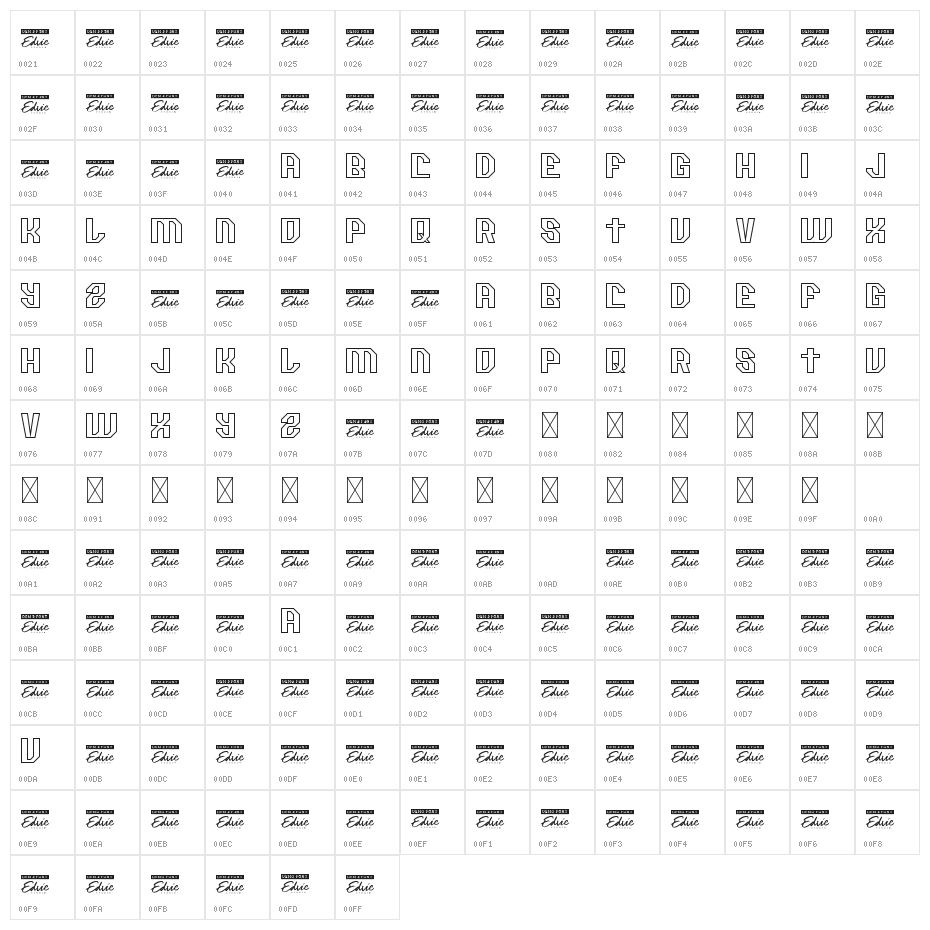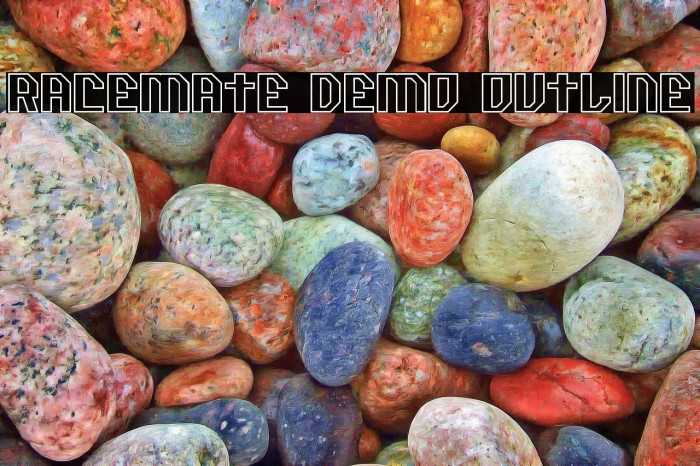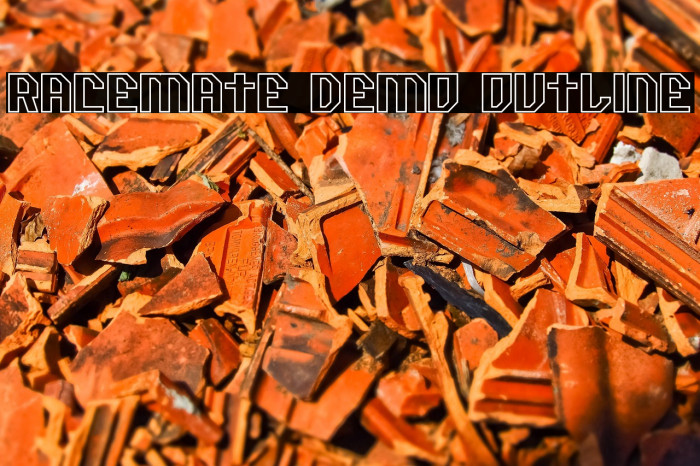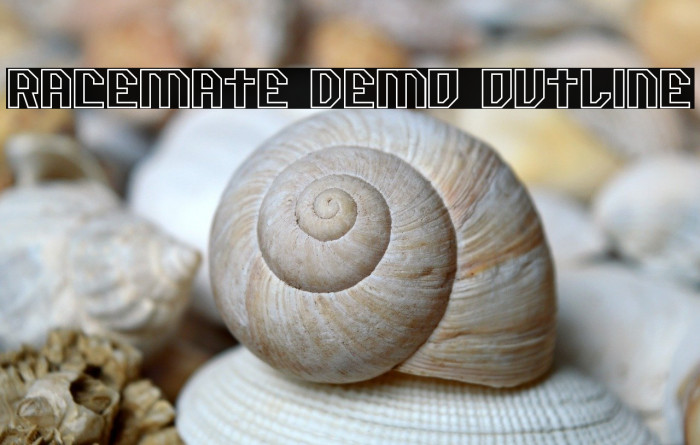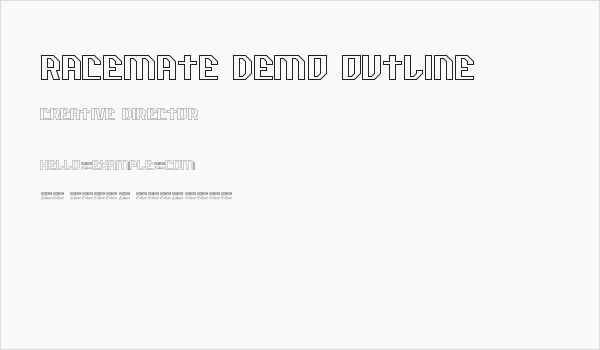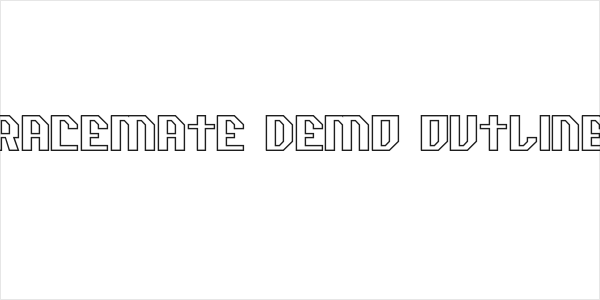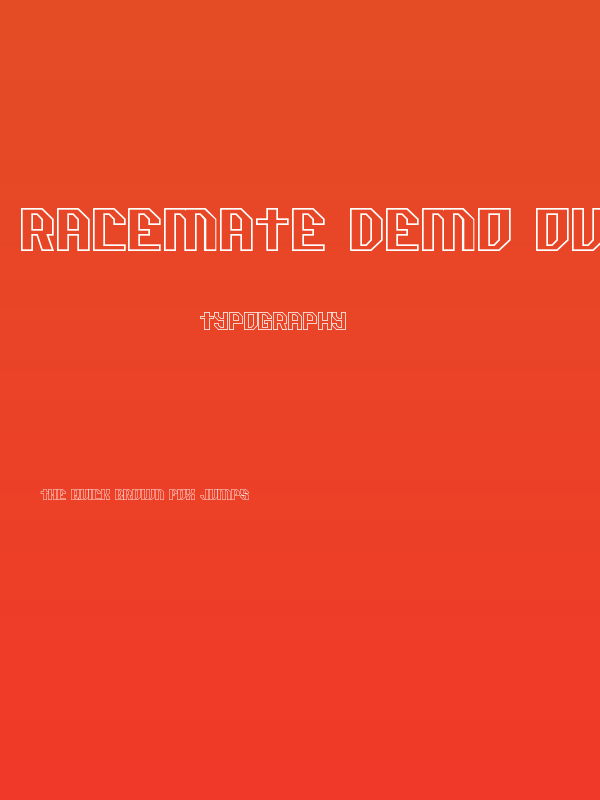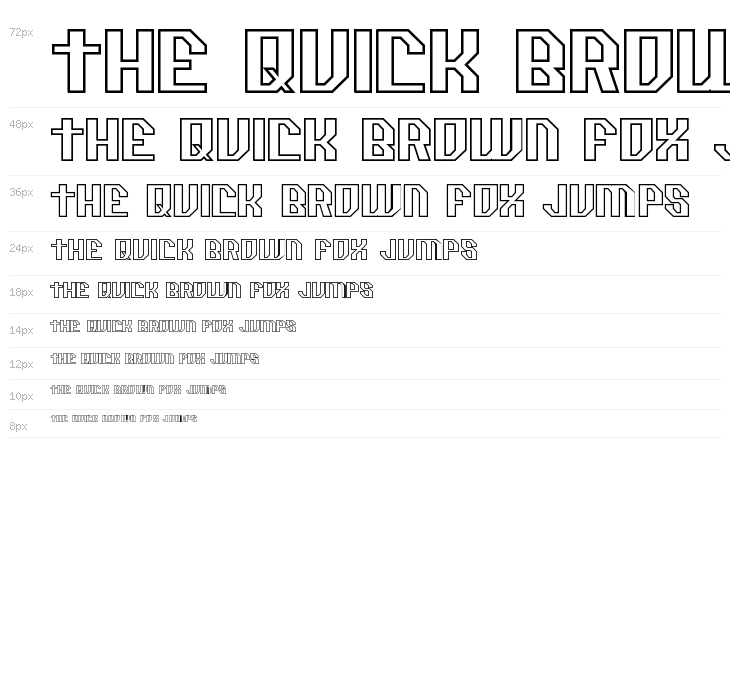
Racemate Demo Outline Font
Racemate Demo Outline Description
This font features a bold, geometric outline style with a modern and edgy appearance. The uppercase letters are constructed with sharp angles and clean lines, giving it a futuristic and industrial feel. The characters are uniform in height, with a consistent stroke width that creates a cohesive look across the alphabet. The font's outline nature allows for creative layering and color usage, making it versatile for various design applications. Its unique structure makes it stand out, perfect for projects that require a strong visual impact.